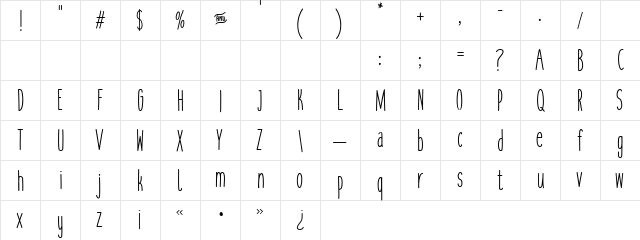
cookies&milk regular
| Foundry | phitradesign |
| Designer | Philip Trautmann |
cookies&milk takes a measured approach to typography — its balanced proportions and neutral character make it a reliable workhorse for both digital and print work.